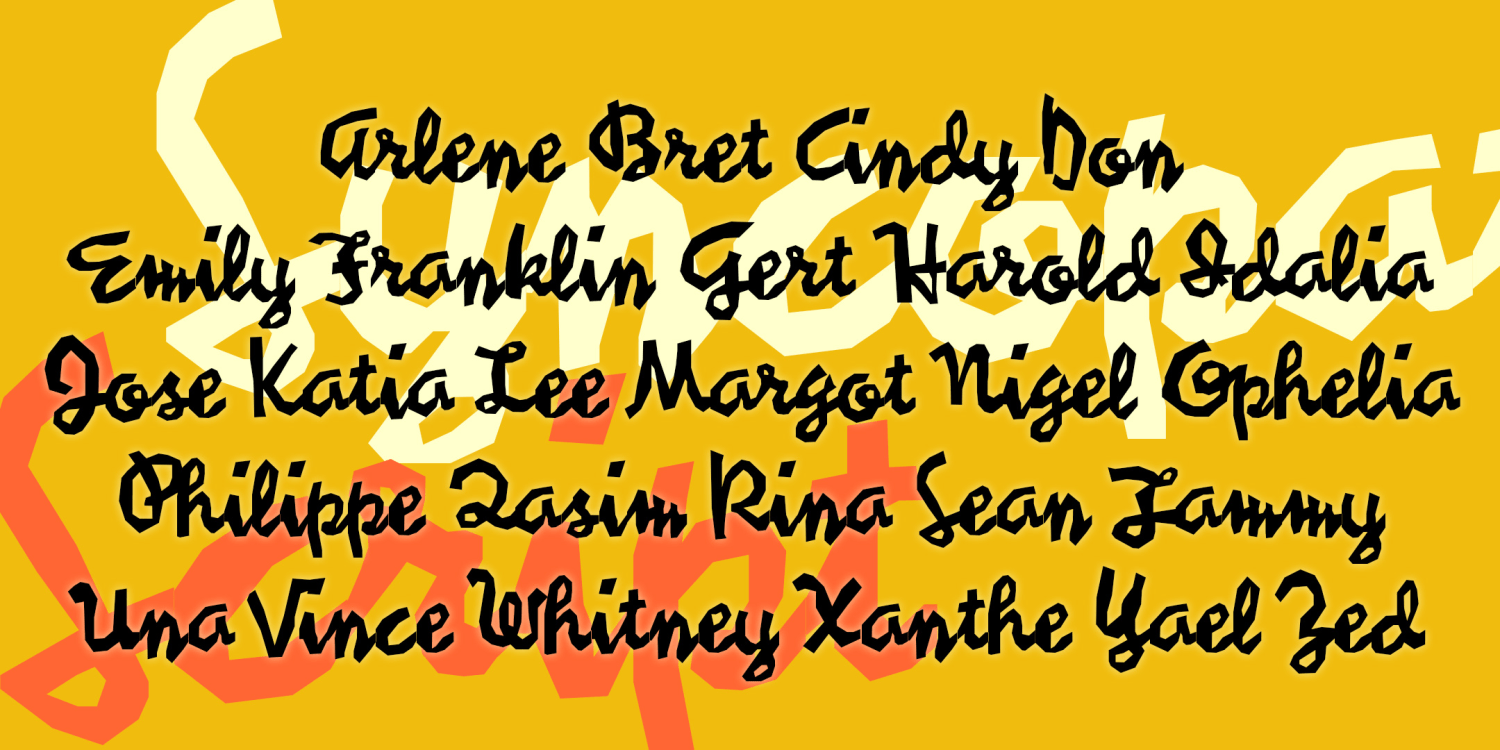
HomeFont BrosRetro (1936-1965)Syncopated Script Retro (1936-1965)Scripts: Casual Syncopated Script FacebookXPinterestWhatsApp 1 of 1 About Syncopated Script SYNCOPATED SCRIPT was inspired by the work of the painter Stuart Davis. Syncopated Script is bold, jumpy, and unpredictable, like some jazz and many of Davis's canvases.  DOWNLOAD NOW People also explored Near Font Bridgestown Font Special Christmas Font Sogeh Font Plotterfreak Font Noach Font I Love January Font Mr. Night Font Night Coast Font 241 0 TagsSyncopated Script Font Previous articlePalimpsestNext articleBoycott LEAVE A REPLY Cancel reply Comment: Please enter your comment! Name:* Please enter your name here Email:* You have entered an incorrect email address! Please enter your email address here Website: Save my name, email, and website in this browser for the next time I comment. Personal Use Free Ciggs Personal Use Free Read more about this font Merak Personal Use Free Read more about this font Maxwell Personal Use Free Read more about this font Angelitta Personal Use Free Read more about this font BLOG How to Install and Use Fonts on Windows, macOS, and Web Projects How to Install and Use Fonts on Windows, macOS, and Web Projects Fonts are a crucial part of design and branding. Whether you’re designing a... Top 10 Handwritten Fonts That Elevate Your Designs To increase your work productivity, choose the most readable fonts. Elegant Wedding Invitation Fonts – Handwritten & Script Fonts